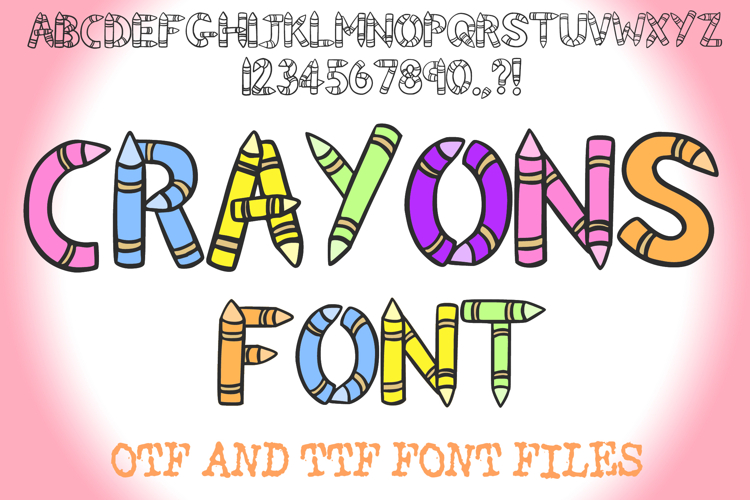
Crayon Lettering ABC Text Font Alphabet OTF Type Illustration
A fun cartoon style font where you can create your own words and colour them to your vision!